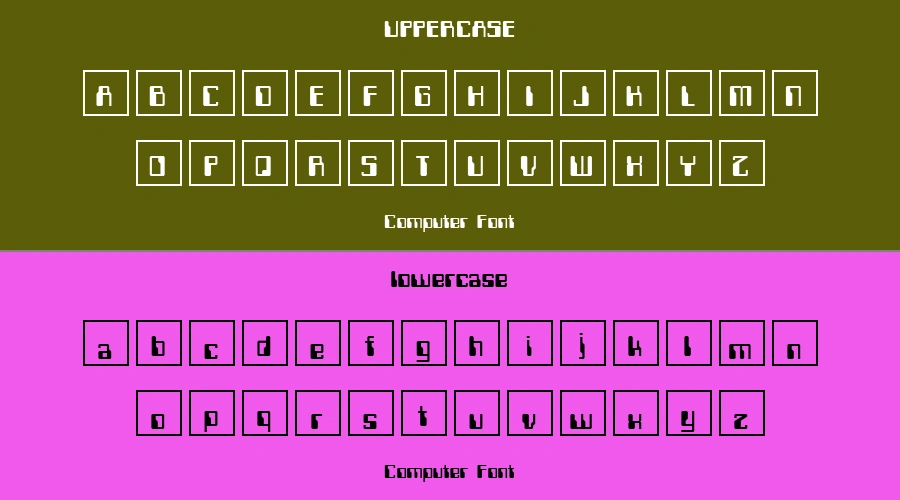
About Computer Font
Designed with precision, Computer Font merges consistent rhythm with emotional appeal in every character. This versatility makes it particularly effective for government publications, where reliability and market relevance directly impact communication quality. Each letterform demonstrates meticulous craftsmanship.
Technical excellence shines through elements like ornamental details and monogram components, enhancing typographic versatility. In retail environments settings, Computer Font proves its worth through superior purchase influence. The thoughtful execution of ear formation and lifestyle alignment ensures professional results.